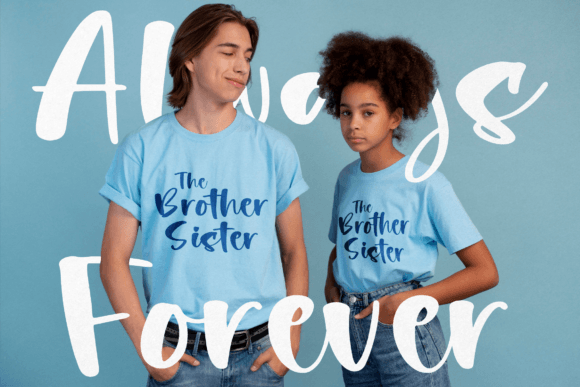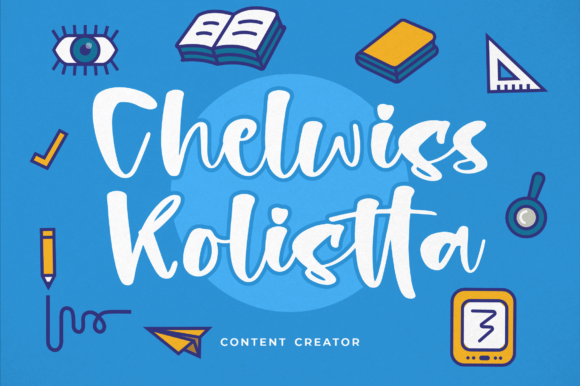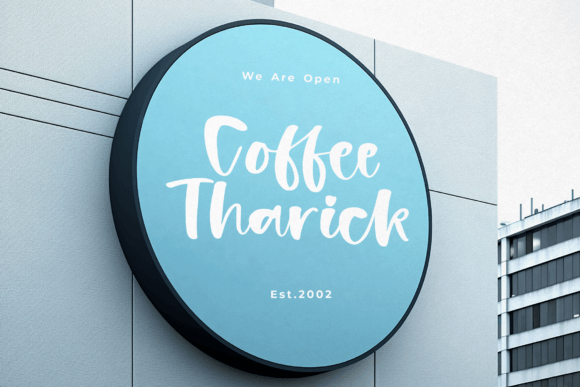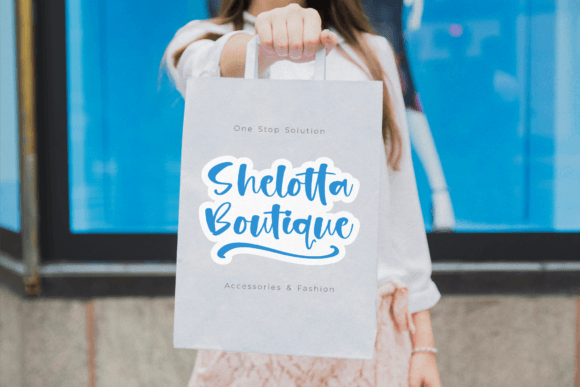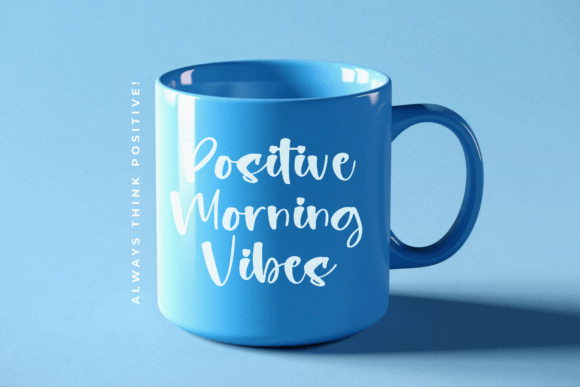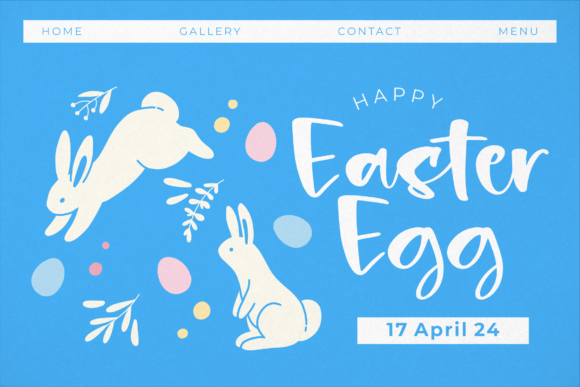
Introduction to Machotta Bluessy Font
Machotta Bluessy – Bouncy Fun Handwritten suitable for any projects such as logos, branding projects, homeware designs, product packaging, mugs, quotes, posters, shopping bags, t-shirts, book covers, name cards, invitation cards, greeting cards, labels, photography, watermark, special events, and all your other lovely projects that need a beautiful script taste.
Machotta Bluessy – Bouncy Fun Handwritten suitable for any projects such as logos, branding projects, homeware designs, product packaging, mugs, quotes, posters, shopping bags, t-shirts, book covers,
Key Features of Machotta Bluessy Font
Why Choose Machotta Bluessy Font?
Machotta Bluessy Font offers exceptional quality and versatility, making it a valuable addition to your design toolkit. Whether you’re creating for personal projects or commercial use, Machotta Bluessy Font delivers professional results.